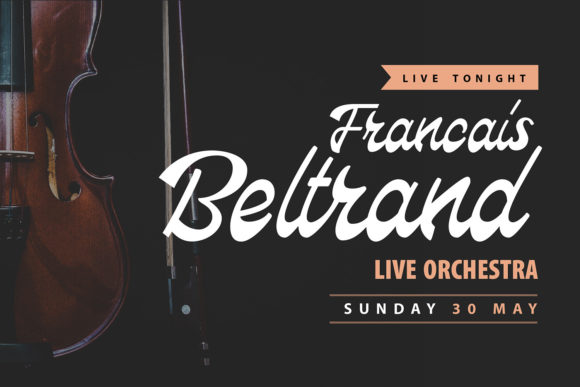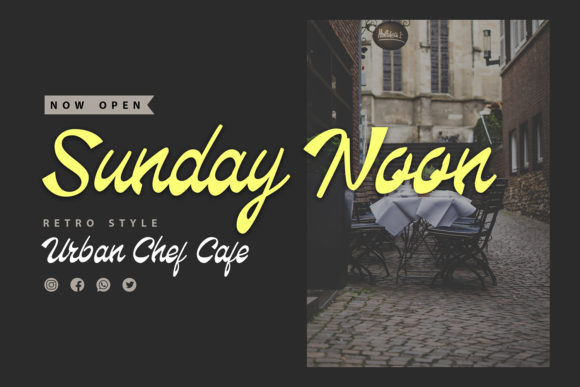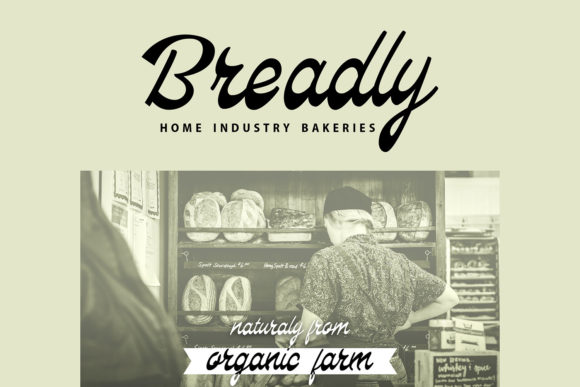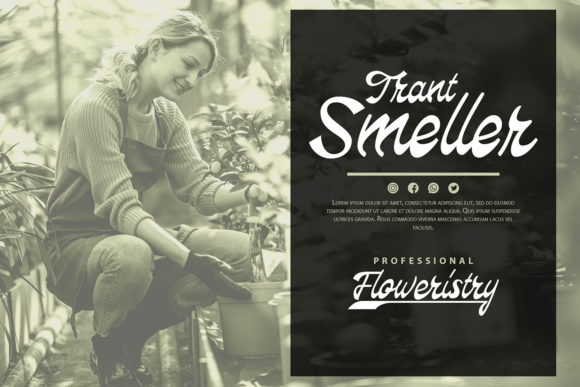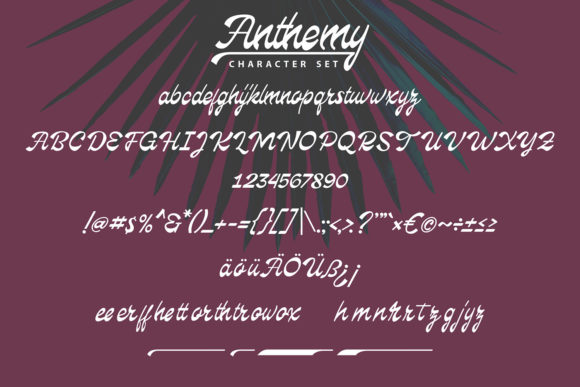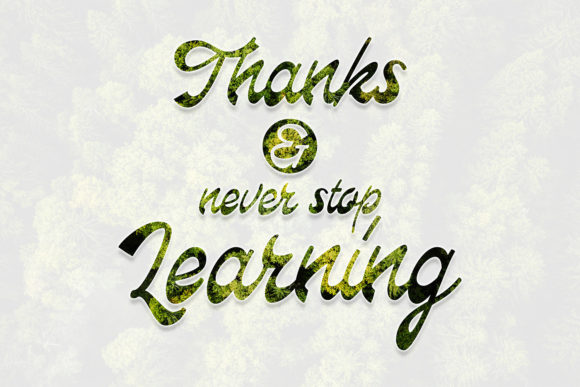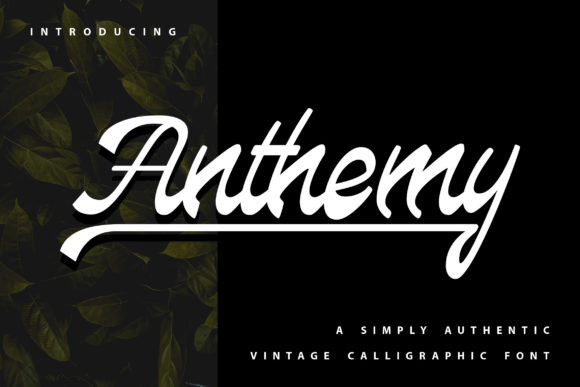
I still remember the countless hours I spent searching for the perfect font for a client’s branding project. The client wanted something that exuded elegance, sophistication, and a touch of vintage charm. I scoured the internet, tried out numerous fonts, but nothing seemed to fit the bill. That was until I stumbled upon Anthemy Font. ✨
Anthemy is a beautiful, well-balanced, and vintage-styled script font that has become a staple in my design toolkit. Its smooth curves and classic look make it perfect for fashion branding or editorial designs. In this article, I’ll share my honest review of Anthemy Font, provide a practical guide on how to use it, and explore similar fonts that you might love.
An Honest Review of Anthemy Font
• ✨ Smooth curves and classic look: Anthemy’s vintage charm is undeniable, making it perfect for designs that require a touch of elegance.
• ✅ Well-balanced and legible: The font’s balance and legibility make it easy to read, even in smaller sizes.
• 💡 OpenType features and glyphs: Anthemy comes with a range of OpenType features and glyphs, allowing for creative freedom and flexibility.
While Anthemy Font is an excellent choice for many designs, there are a few quirks to consider:
• ⚠️ Limited use in body text: Due to its script nature, Anthemy might not be the best choice for lengthy body text. It’s better suited for headings, titles, or short paragraphs.
• 🤔 Kerning issues in some platforms: Some users have reported kerning issues when using Anthemy in certain design platforms. However, this can be easily adjusted with a little manual tweaking.
The Designer Inspiration Behind Anthemy
Anthemy Font was inspired by the classic typography of the 19th century. The font’s designer aimed to create a font that exuded elegance, sophistication, and a touch of vintage charm. The result is a beautiful, well-balanced script font that’s perfect for fashion branding or editorial designs.
Q: What is Anthemy Font?
A: Anthemy Font is a beautiful, well-balanced, and vintage-styled script font perfect for fashion branding or editorial designs.